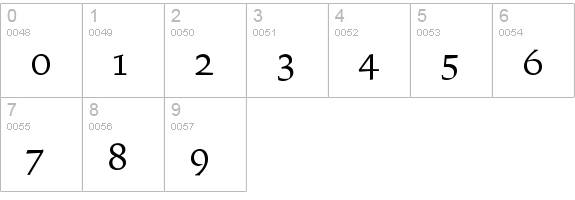
Alisal Std Font Details
Alisal Std font is a versatile and elegant typeface that exudes sophistication and charm. With its clean lines and modern aesthetic, this font is suitable for a wide range of design projects. Whether you are working on branding, editorial design, or web design, Alisal Std font will add a touch of class to your work. What makes Alisal Std font even more appealing is that it is completely free to download. That's right, you can get your hands on this beautiful typeface without spending a dime. Simply head over to FontsMarket.com to download Alisal Std font and start using it in your projects today. Don't miss out on this fantastic opportunity to enhance your designs with a high-quality font that won't cost you a thing.